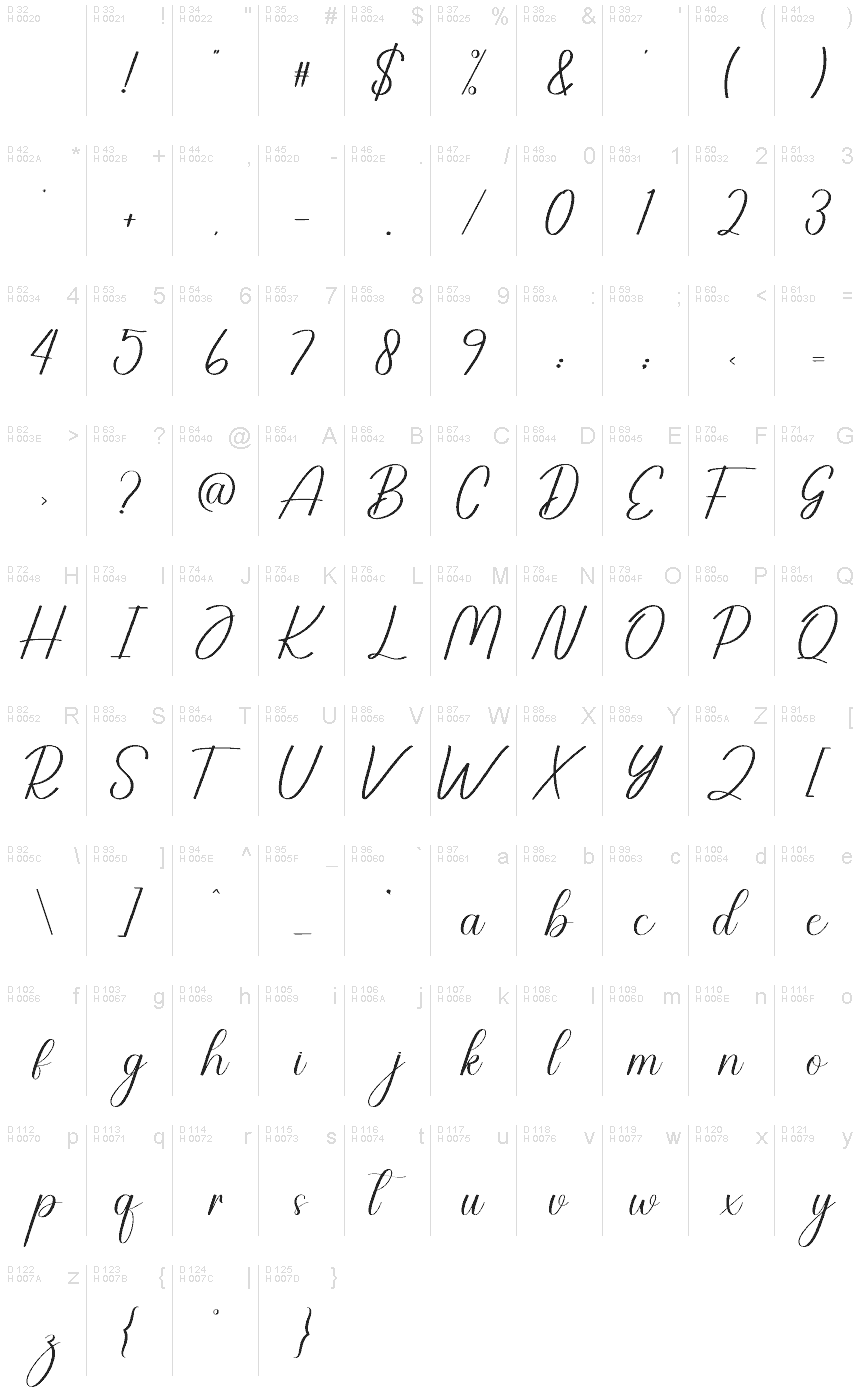
Sporty
Sporty font is a free handwritten display font by Andi Moz, where condensed long letters are going for a flowing sequence that looks elegant & graceful. Sporty’s light strokes immediately show off its high-end aesthetic and sophisticated aura. The overall branding with this inscription is expressive and at the same time modern-looking.